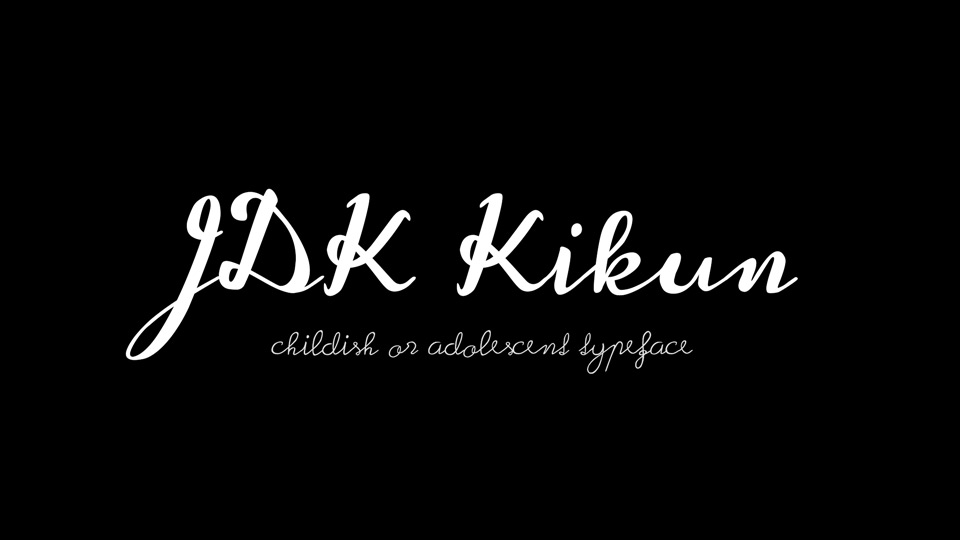
Download JDK Kikun font, a childish or adolescent typeface. Contains 4 cuts: regular, calligraphic, love and song. The last two are an extension of the regular cut with twists around the mood-inducing letters (hearts, flowers, notes).
Designer: Jakub D. Kočí